Real Madrid have been forced to accept that they will have to adhere to La Liga rules when it comes to the font that they use for player names and numbers on their shirts in league matches.
From last year it became a requirement of La Liga that all teams use the same font during league matches. But Real being Real whole-heartedly adopted the view that rules are made to be broken and so they chose to use different fonts in certain matches. They also took the matter to the courts, arguing against being forced to use the La Liga font. The move has backfired somewhat for Real however, with the court ruling in La Liga's favour.
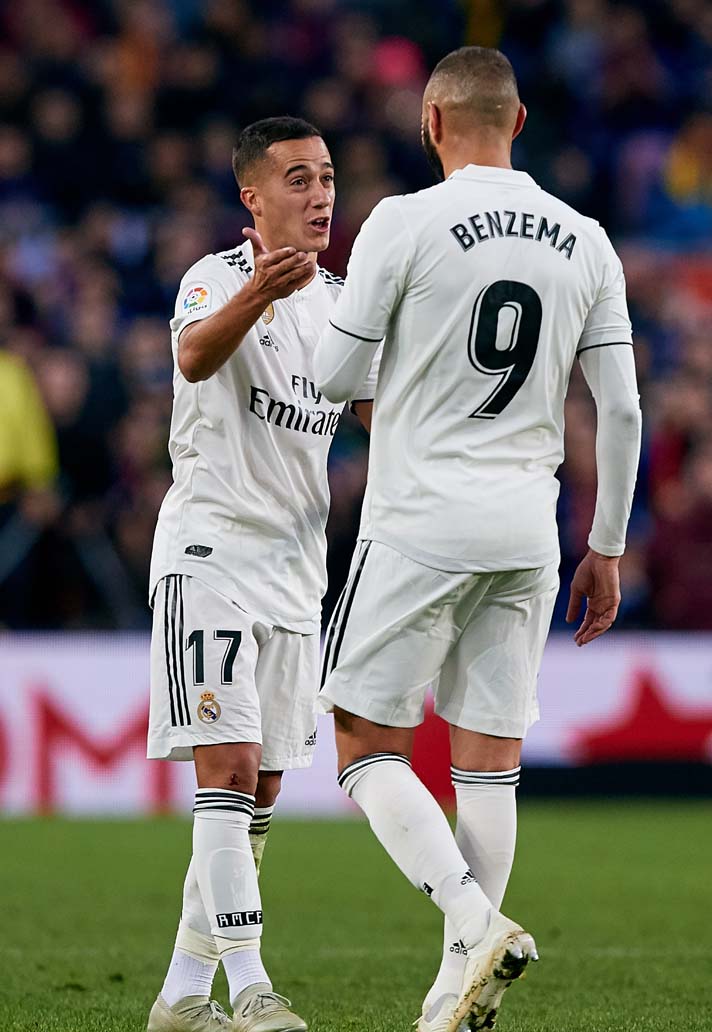
Real were arguing that different fonts helped to emphasise the ‘z’ in names like ‘Benzema’ and ‘Odriozola’. However, following the court ruling they must now adhere to La Liga’s font regulations.
With it being Real who took the matter to court and as a result of the outcome, it will be them who have to foot the bill for the case. Los Blancos should be able afford it though. Real Madrid will still be able to use their own choice of font in the Champions League and Copa Del Rey, but as far as La Liga goes, the courts have spoken.